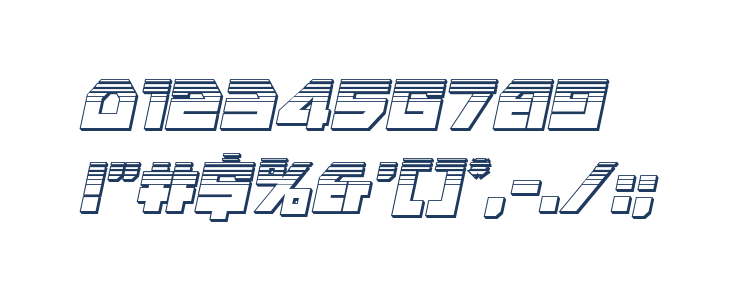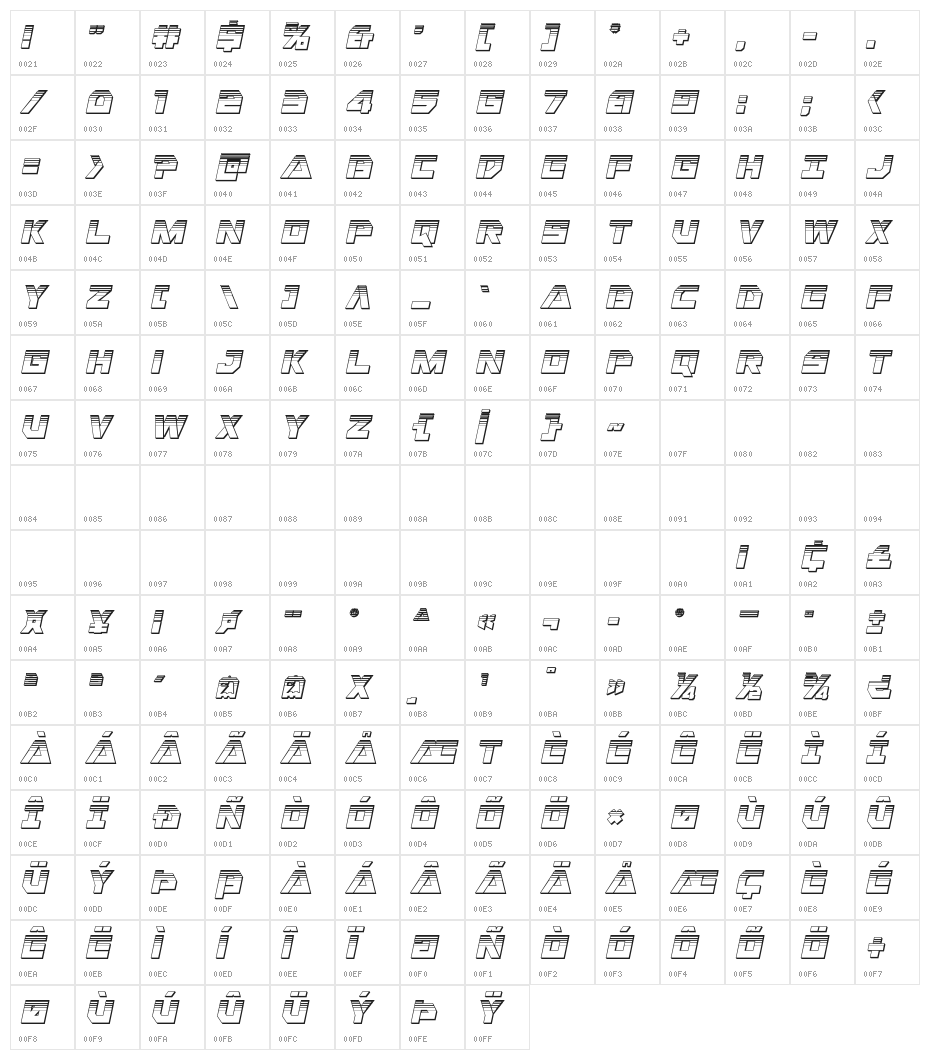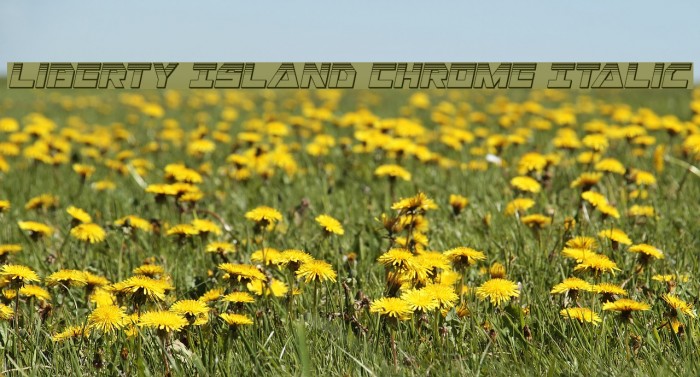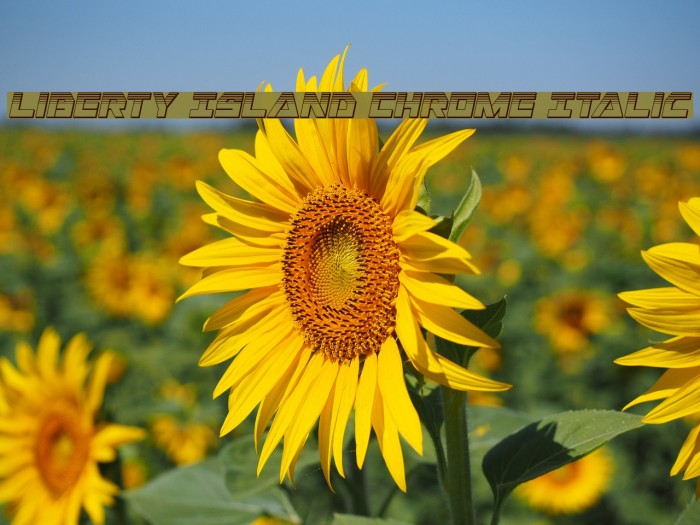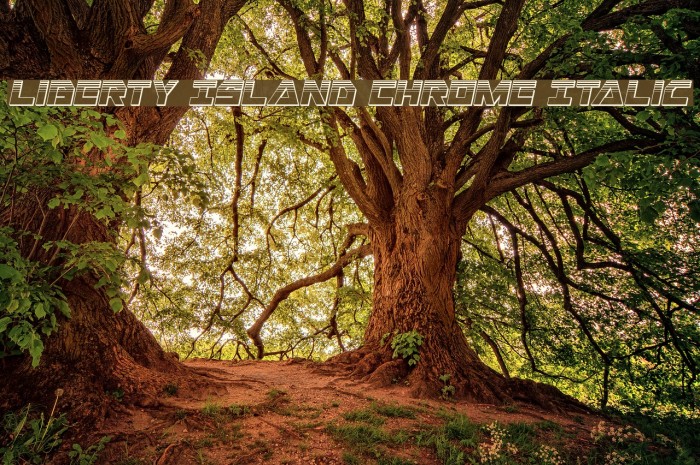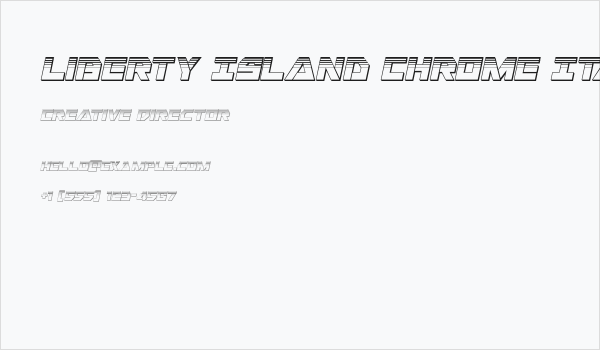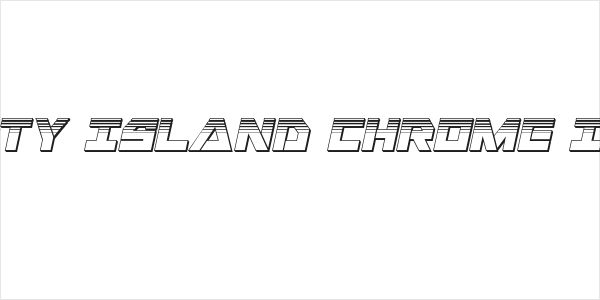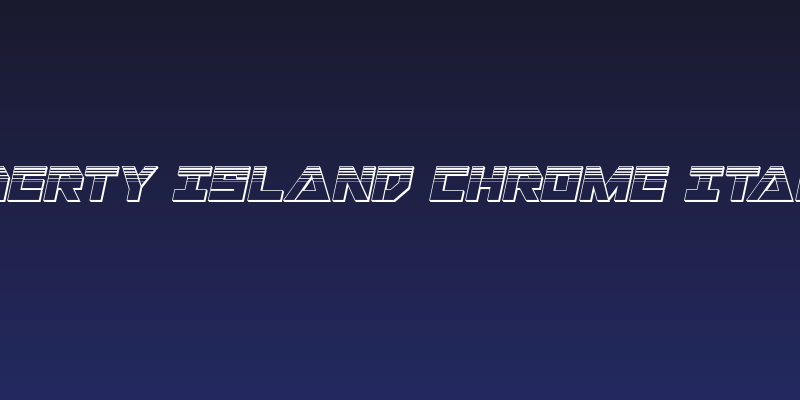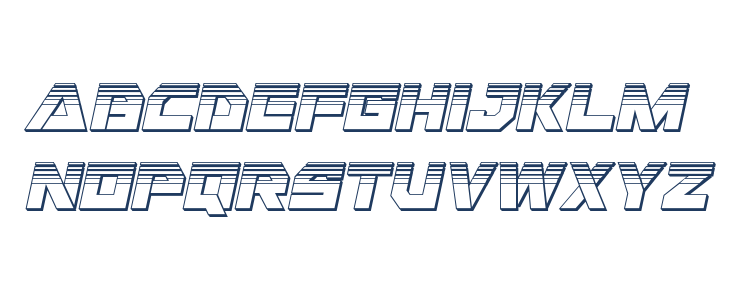
Liberty Island Chrome Italic Font
Liberty Island Chrome Italic Description
This font features a bold, futuristic design with a three-dimensional, chrome-like appearance. The letters are italicized, giving them a dynamic and forward-leaning stance. Each character is outlined with a double line, enhancing the metallic effect and adding depth. The geometric shapes and sharp angles contribute to a modern, industrial feel. The font is highly stylized, making it suitable for attention-grabbing headlines or logos that require a strong visual impact. The uppercase letters are consistent in height, while the numbers and special characters maintain the same bold, outlined style.
| Overall Style | Futuristic, Industrial |
| Proposed Projects | Ideal for sci-fi themed projects, technology branding, video game titles, or any design needing a modern, industrial look. |